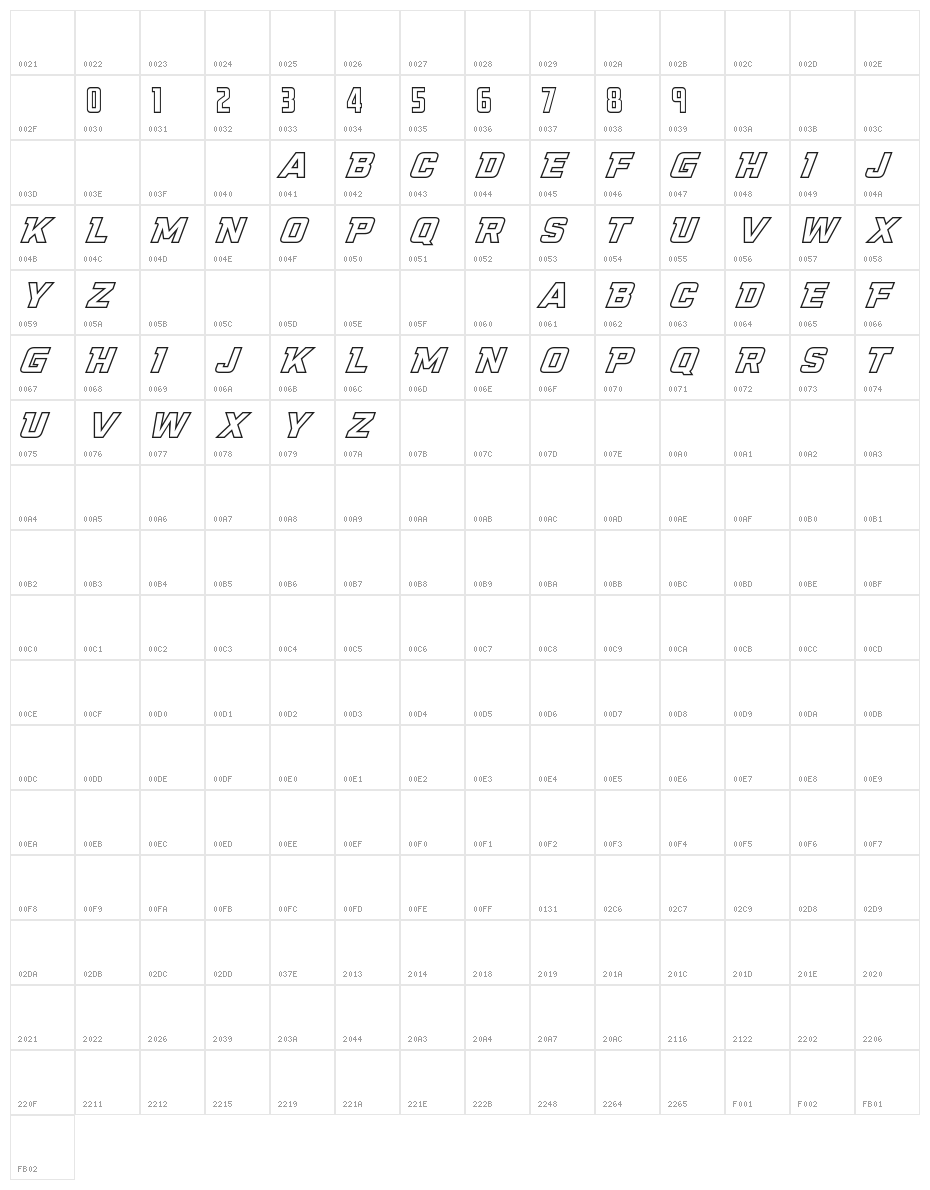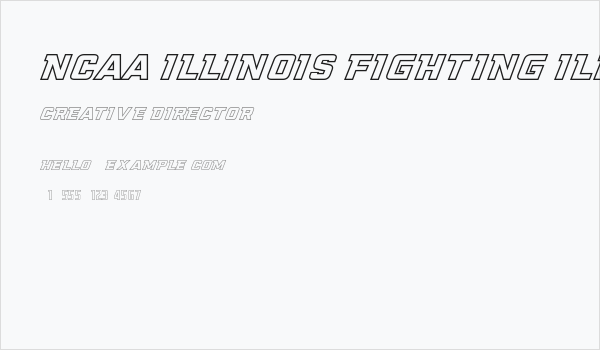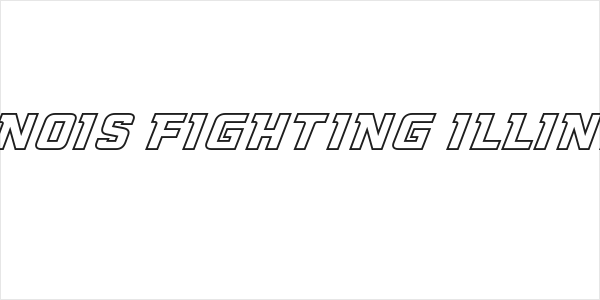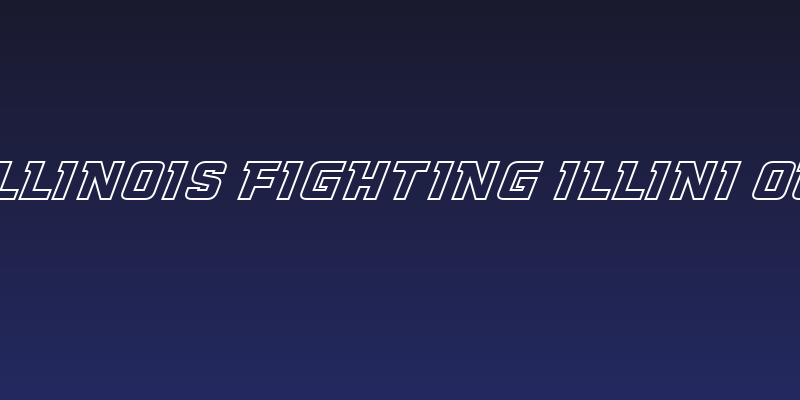
NCAA Illinois Fighting Illini Outline Font
NCAA Illinois Fighting Illini Outline Description
This font features a bold, athletic style with a distinct outline that gives it a strong, impactful presence. The uppercase letters are angular and dynamic, conveying a sense of movement and energy. The numbers are similarly styled, maintaining the bold outline that enhances readability and adds a sporty flair. This font is ideal for projects that require a bold statement, such as sports team branding or event posters. The outlined design adds a layer of depth, making it suitable for both digital and print media.
| Proposed Projects | Sports team branding, event posters, merchandise design, digital media graphics. |